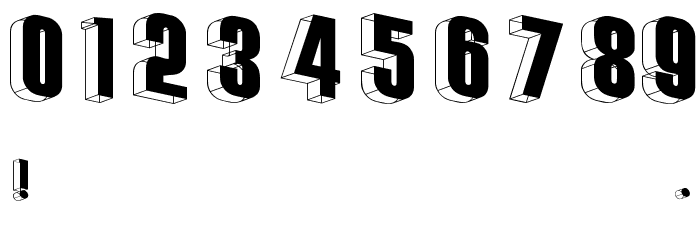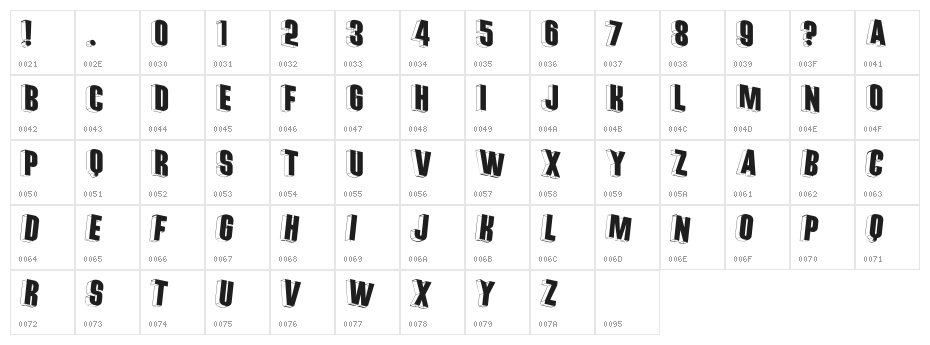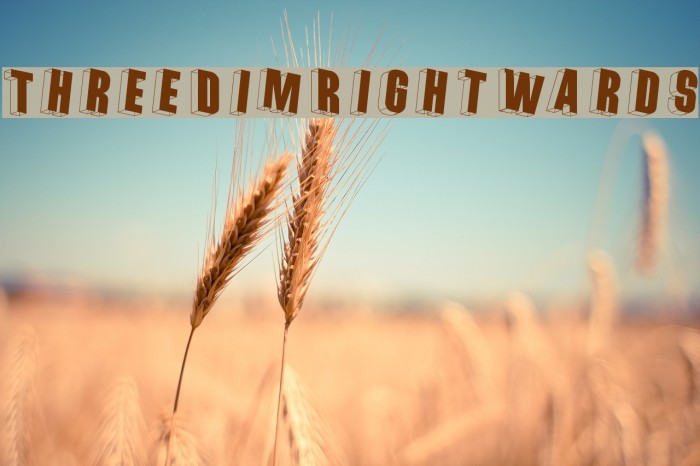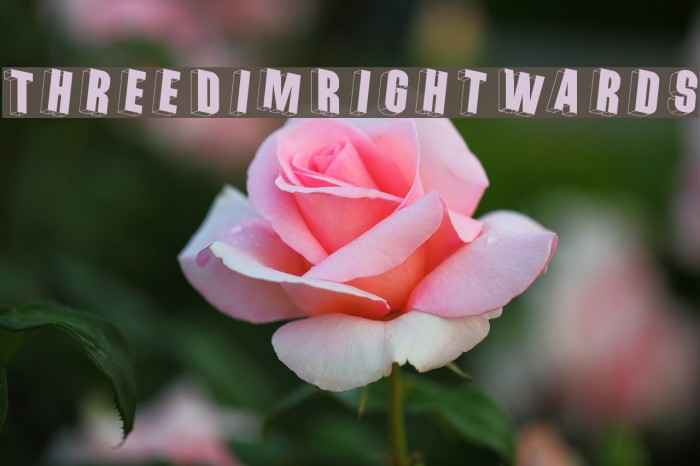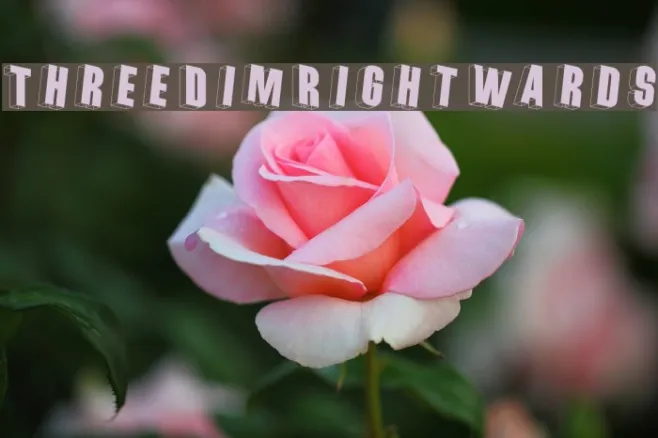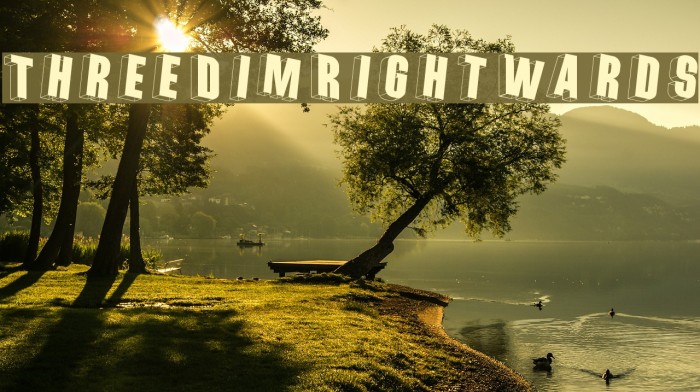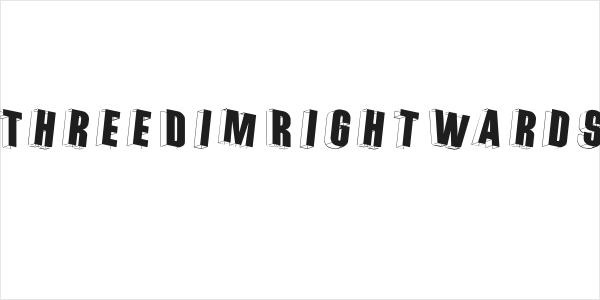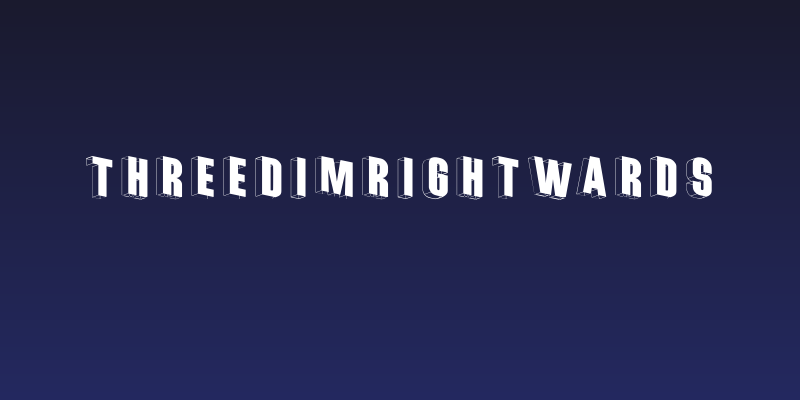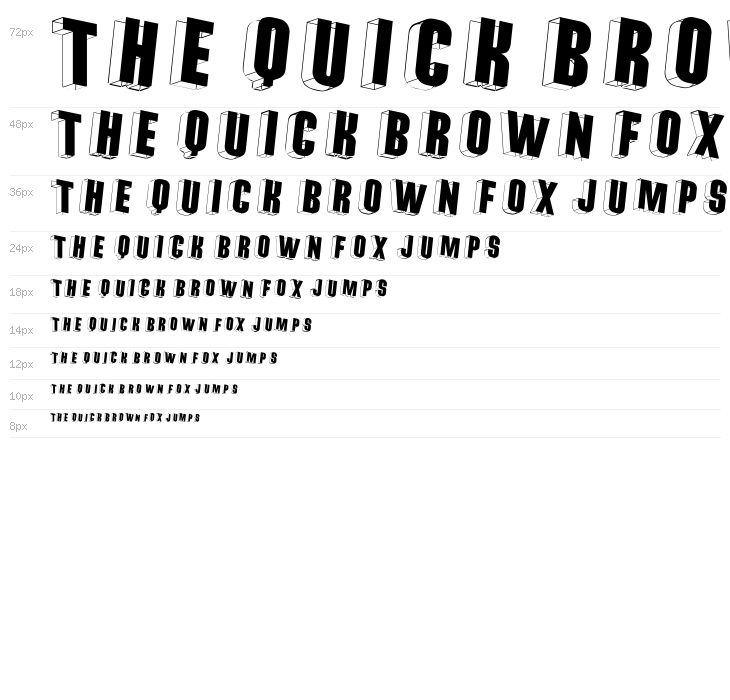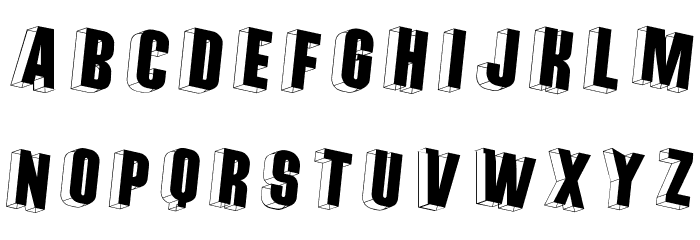
ThreeDimRightwards Font
ThreeDimRightwards Description
This font features a bold, three-dimensional design with a rightward shadow effect, giving each character a striking and dynamic appearance. The letters are uppercase, with a strong geometric structure that emphasizes their boldness. The 3D effect is achieved through a consistent shadow that extends to the right, creating a sense of depth and movement. The font's style is both modern and playful, making it suitable for eye-catching designs. The numbers and special characters maintain the same 3D effect, ensuring a cohesive look across all elements.
Proposed ProjectsIdeal for posters, headlines, logos, and any design requiring a bold, attention-grabbing typeface.